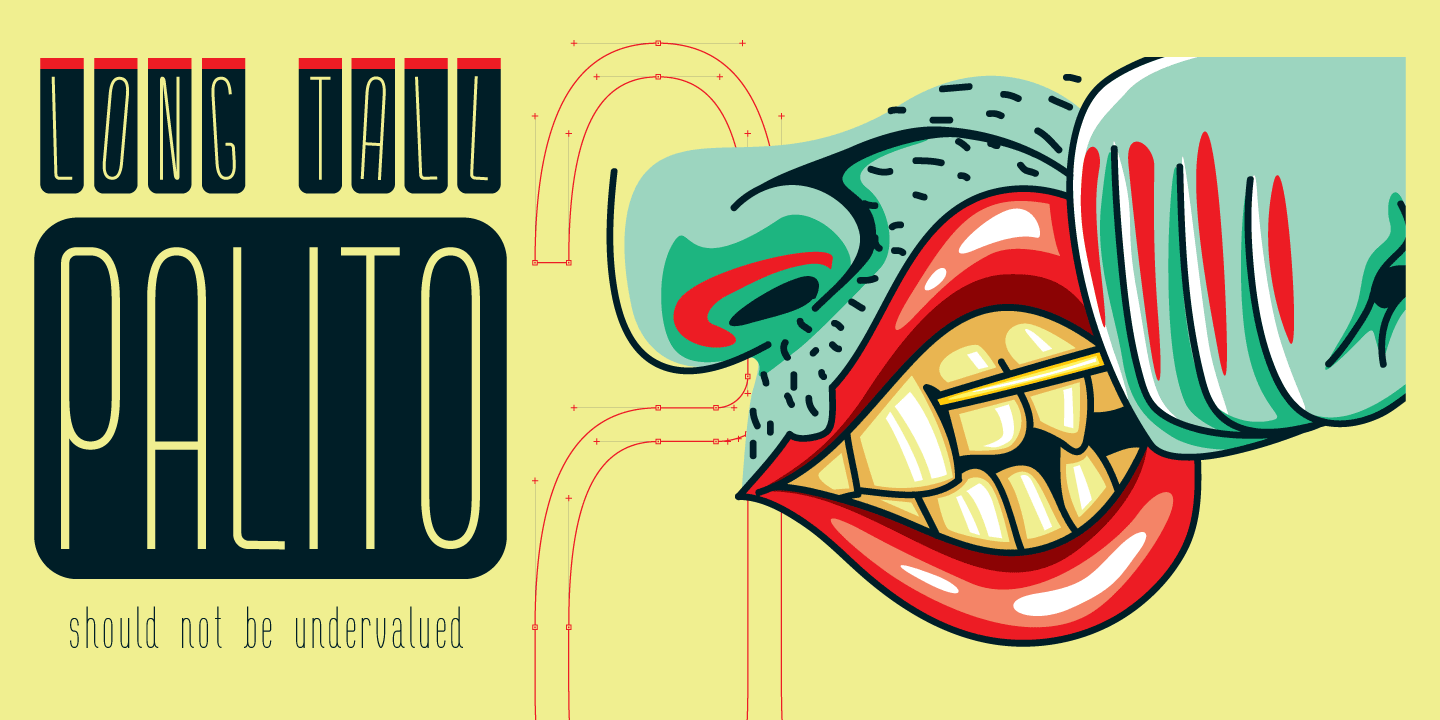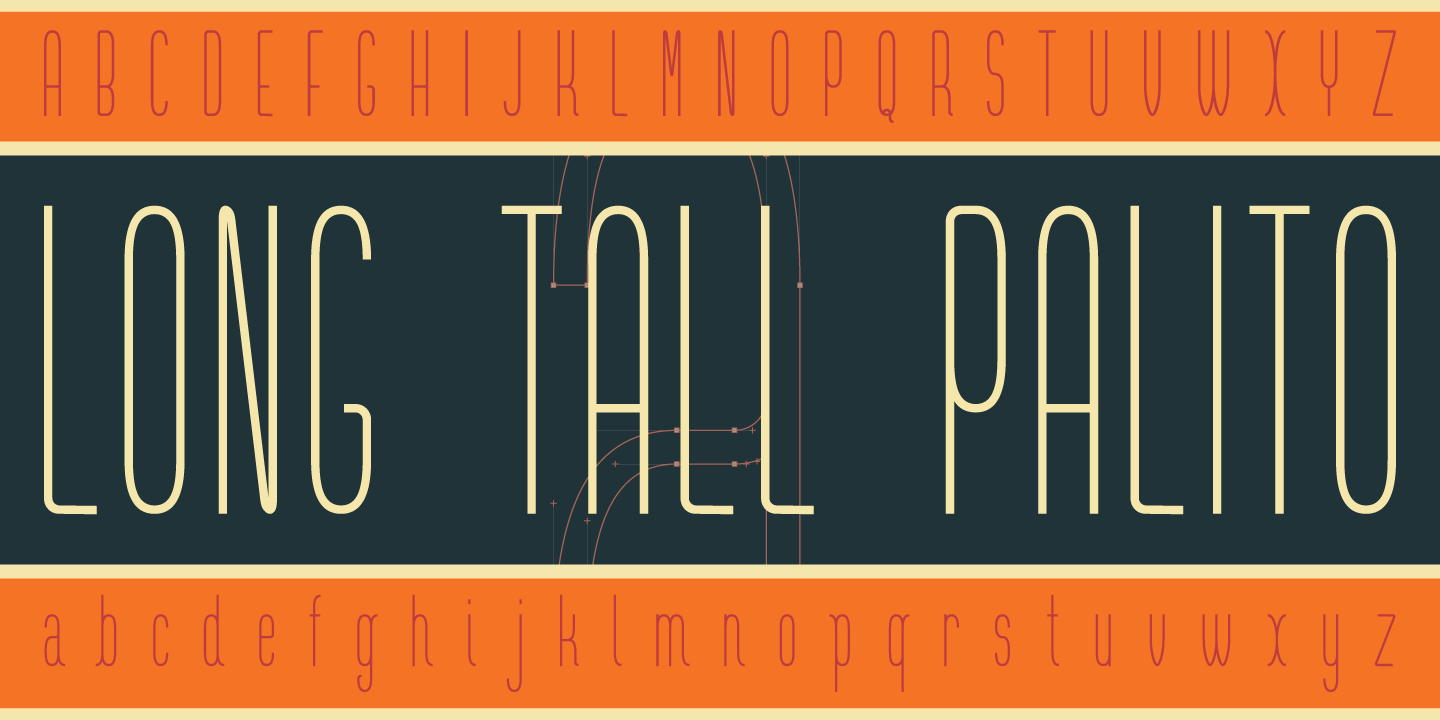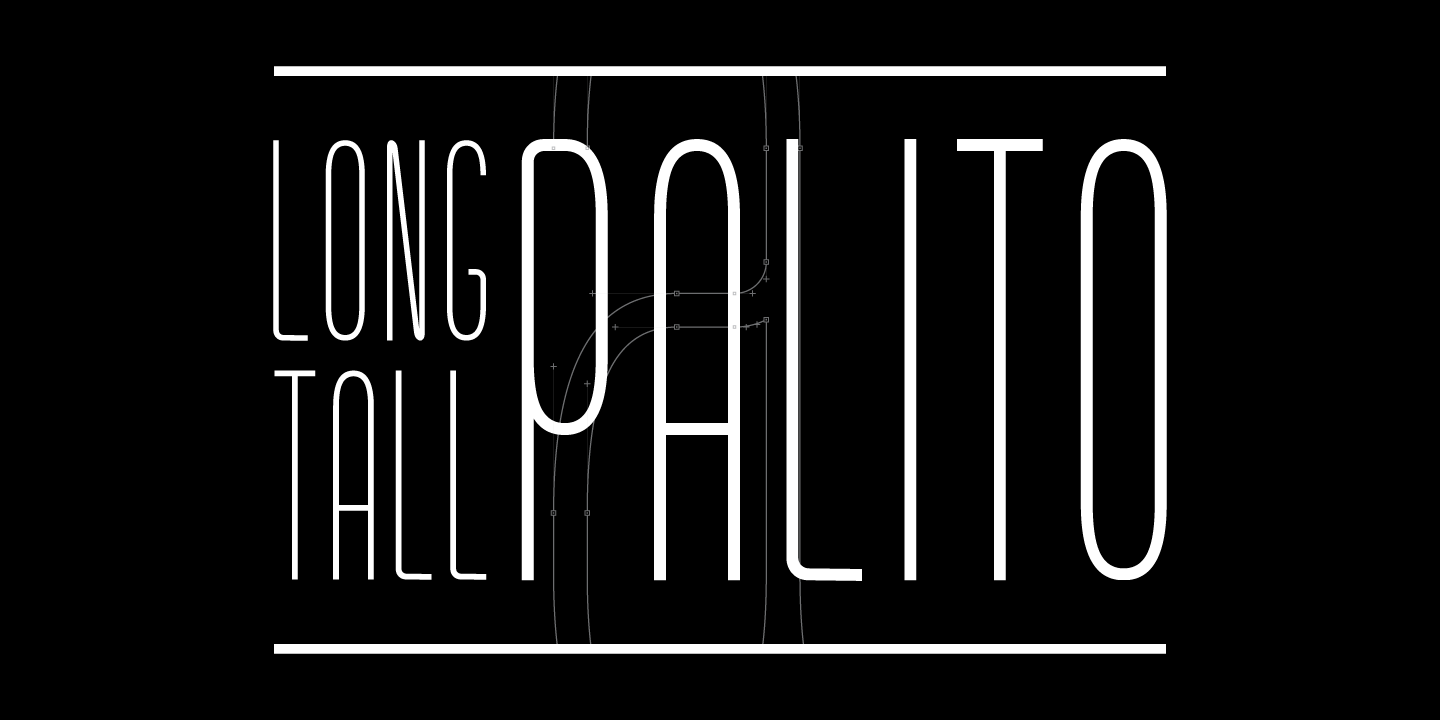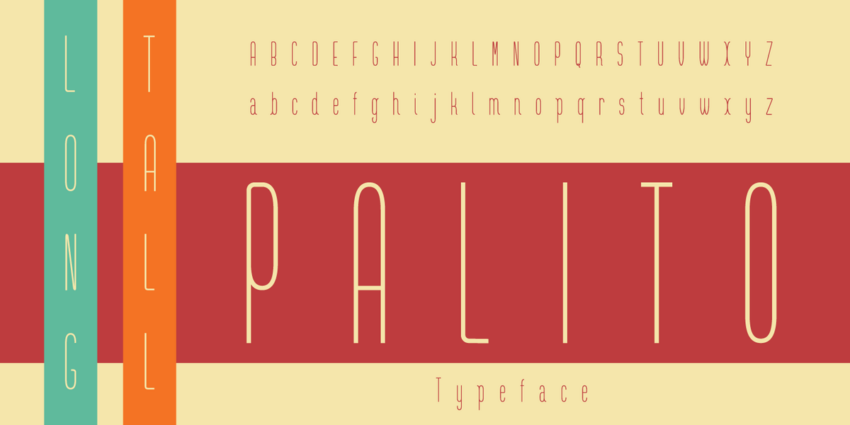
Introduction to Long Tall Palito Font
Palito, a thin but strong sans serif font.
This clean and powerful typeface will help you create designs that leave an impact .